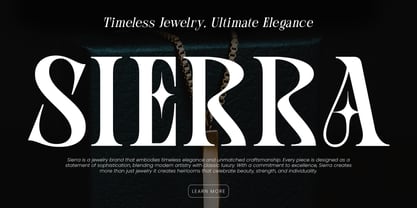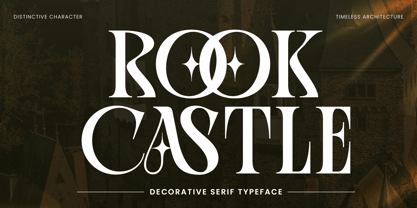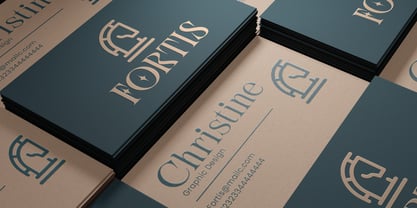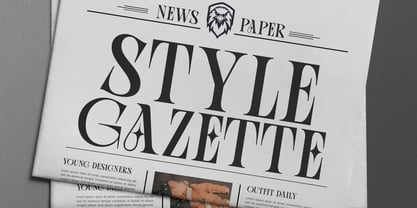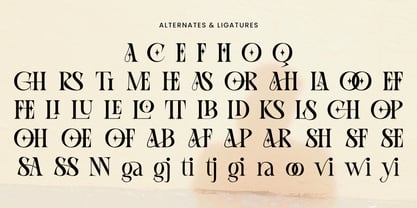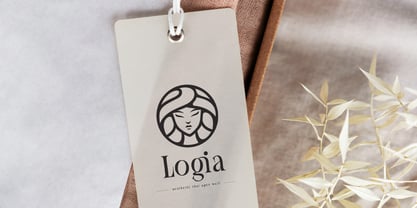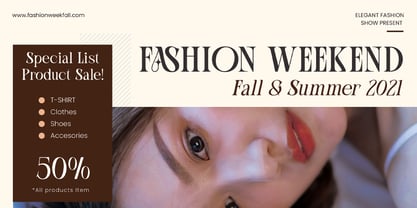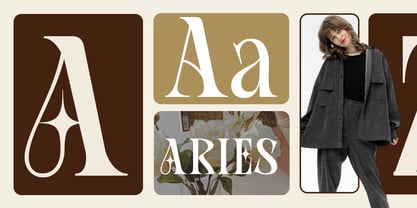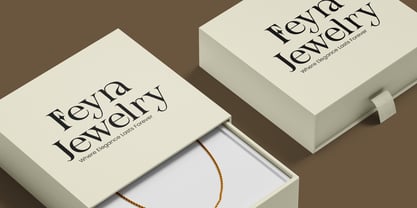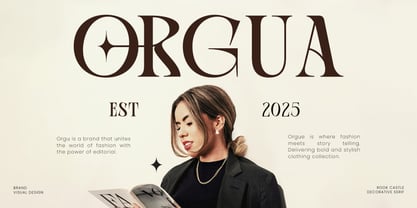
Rook Castle
by Jafar07
The Rook Castle Font Family was designed by Bakhrudin Ja'far and published by Jafar07. Rook Castle contains 2 styles and family package options.
Rook Castle is a decorative serif typeface that blends timeless elegance with bold personality. Inspired by classic architecture and medieval charm, this font brings a sense of sophistication and strength to any design project. Its stylish curves and distinctive letterforms make it a perfect choice for those who want to create designs with impact and character. Designed with attention to detail, Rook Castle features high contrast strokes, refined serifs, and a unique ornamental touch that makes every character stand out. The typeface is versatile enough to be used in large headlines while maintaining perfect readability. Whether you’re designing branding materials, logos, or editorial layouts, this font delivers a professional yet artistic feel that sets your work apart.